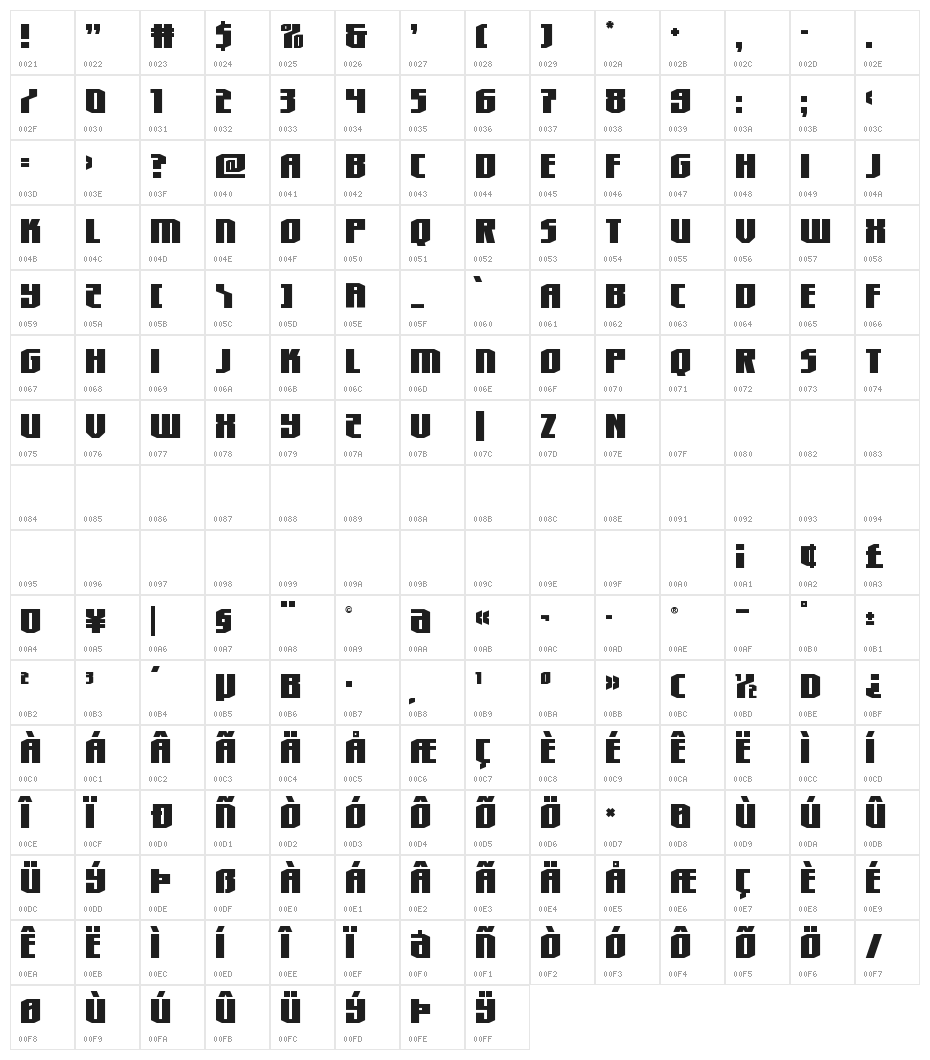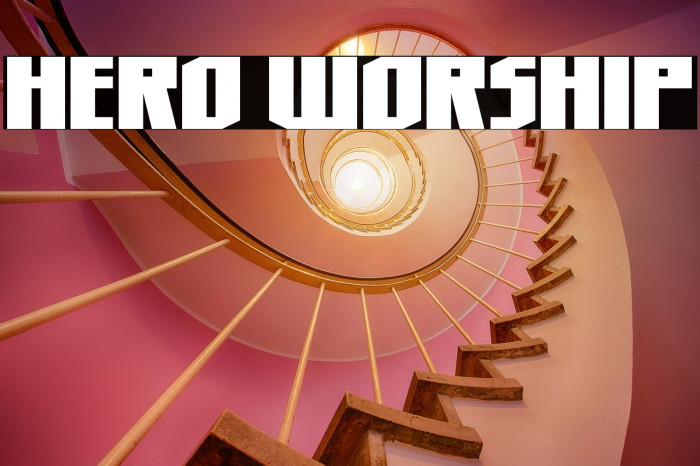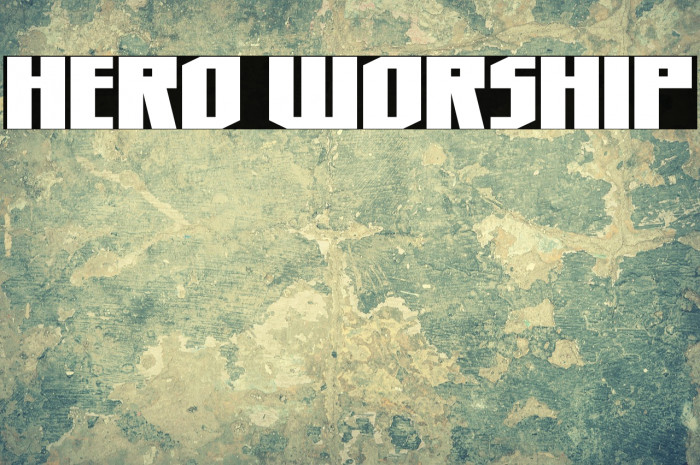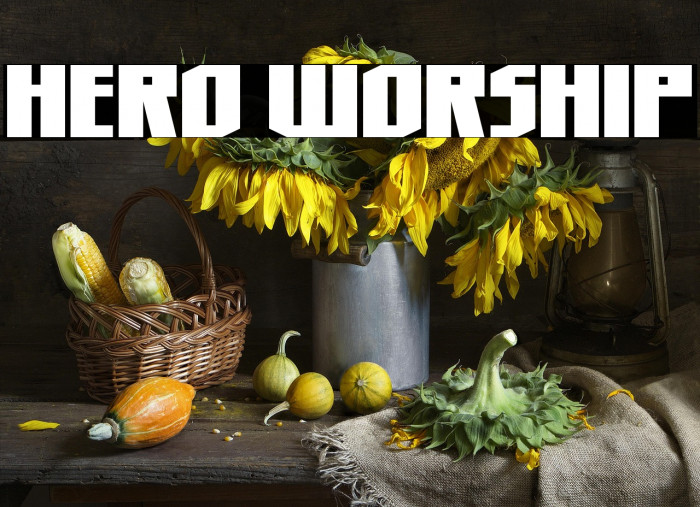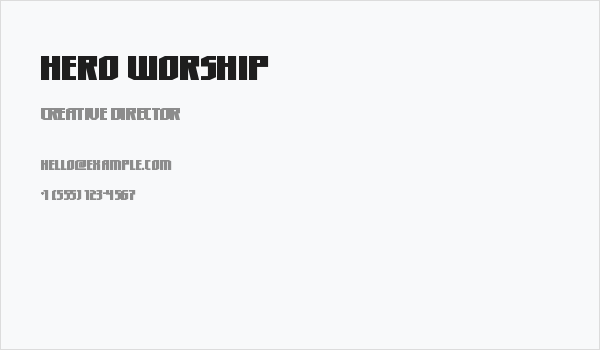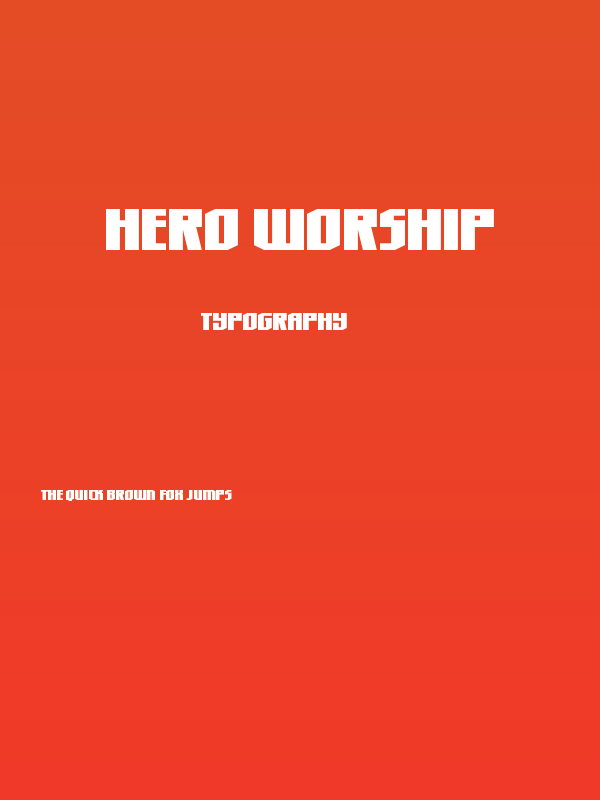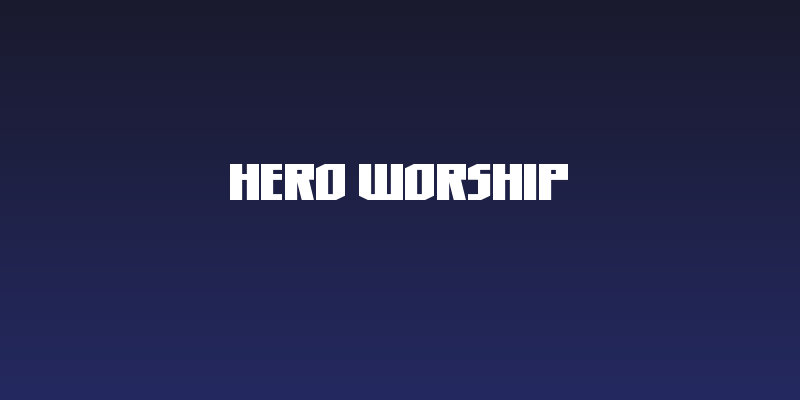
Hero Worship Font
Hero Worship Description
This font features a bold and impactful design with strong geometric shapes and sharp angles. The uppercase letters are particularly striking, with a blocky and robust appearance that commands attention. The lowercase letters maintain the same boldness, ensuring consistency across the typeface. Numbers and special characters are designed with the same geometric precision, making them stand out. The overall style is reminiscent of industrial or futuristic themes, making it ideal for projects that require a strong visual impact.